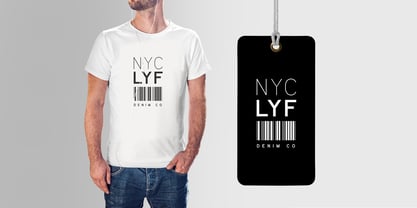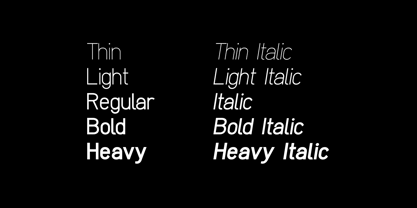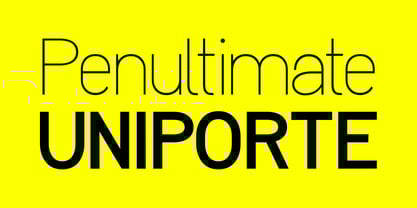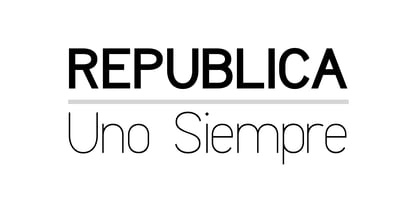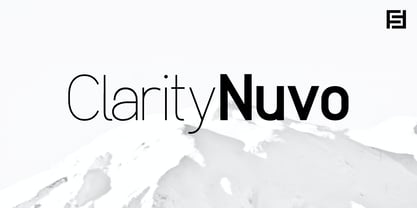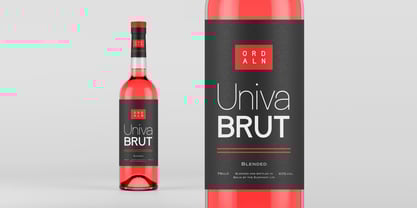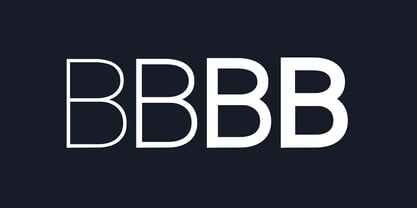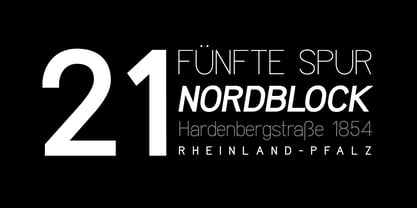
Clarity Nuvo
by Designova
The Clarity Nuvo Font Family was designed by Jean Johnson and published by Designova. Clarity Nuvo contains 10 styles and family package options.
Clarity Nuvo is a modern & clean sans-serif typeface with a touch of modernism and simplicity added to the design. The typeface comes with a total of 10 fonts spreading between 5 weights featuring 5 uprights and matching italics for each weight.
Handcrafted and designed with powerful opentype features in mind, each weight includes extended language support including Western European & Central European sets. A total of 347 glyphs are included.
Clarity Nuvo is a perfect typeface for graphic design, web, print, and display use. The typeface could be the perfect choice for logo/logotype design, branding, marketing graphics, banners, posters, signage, and corporate identities as well as for editorial design. Adding extra letter spacing will make this font perfect for minimal headlines and logotypes as shown in demographics.